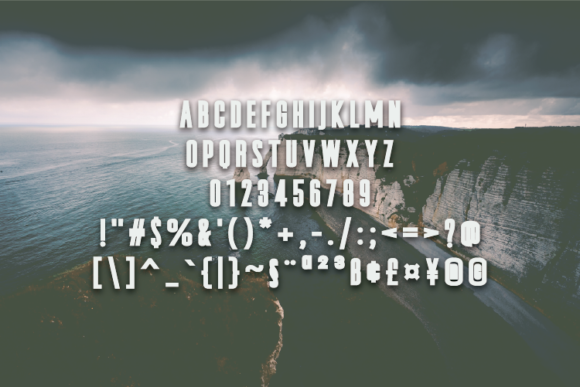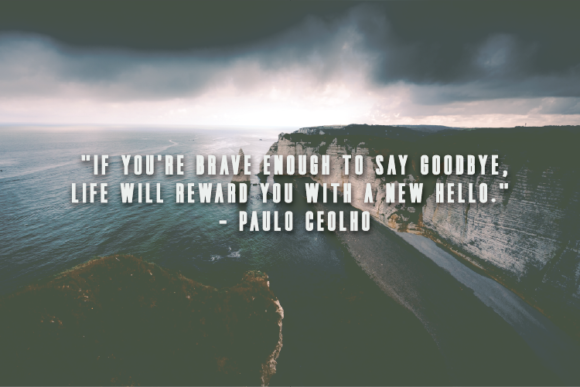
Introduction to Matiouse Font
Have you ever stared at a blank canvas, wondering which design elements will bring your creative project to life? For many designers, finding the perfect font can be the turning point between a good idea and a truly exceptional one. That’s where the Matiouse Font comes in – a clean and versatile sans serif font that’s waiting to elevate your design game.
With its minimalistic approach, the Matiouse Font effortlessly adapts to a wide range of projects, from sleek logos to informative brochures. Its high-quality design makes it an ideal choice for designers seeking a reliable and stylish font that won’t compromise on visual impact. Plus, its transparent background ensures seamless integration into any background or layout, giving you the creative freedom to experiment and innovate.
Key Features of Matiouse Font
- Unique, hand-drawn style with a transparent background, ideal for layered designs.
- Available in 3 different font sizes (12, 18, and 24 points) for versatile application in various creative projects.
- Designed with a high resolution (300 DPI) for crisp and clear display in both digital and print media.
- Perfect for use in graphic design, digital art, and other creative projects where a unique, artistic font is desired.
Honest Review: Matiouse Font
I recently stumbled upon the Matiouse Font and I’m excited to share my thoughts on this design resource.
First off, let’s talk about what works well. ✨ I love the unique aesthetic of this font, which makes it perfect for creative projects that require a touch of elegance. The high quality of the font is evident in its crisp lines and detailed design. Additionally, the free download option makes it easily accessible to designers on a budget.
Another great feature of the Matiouse Font is its transparent background, which allows for seamless integration into any design. This is especially useful for designers working on complex layouts or compositions.
However, there are some limitations to consider. ⚠️ The font may not be as versatile as some other options, and it’s not suitable for projects that require a bold or dramatic font. Additionally, the font’s unique style may not appeal to everyone’s taste.
Overall, I’m impressed with the Matiouse Font and I think it’s a valuable addition to any designer’s toolkit. Whether you’re working on a high-end creative project or a simple design, this font is definitely worth checking out.
- Unique aesthetic
Tips for Getting the Most Out of Matiouse Font
To get the most out of the Matiouse Font, use it on a transparent background to create a high-quality design. You can also experiment with different font sizes and styles to add visual interest to your design.
The Matiouse Font is commonly used in graphic design, digital art, and typography projects. It’s a great resource for designers looking for a unique and stylish font to add to their creative project.